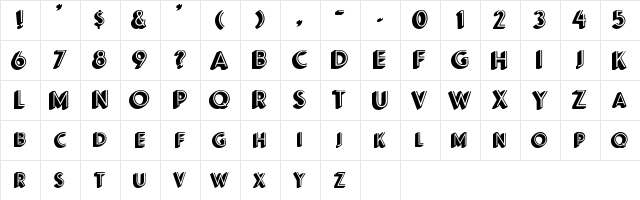
ApexShadowSCapsSSK Bold
Design Context for ApexShadowSCapsSSK Typeface
ApexShadowSCapsSSK is built around its visual character rather than neutral utility — its distinctive forms are designed to make an impression at display sizes. Its bold stroke weight gives it real presence on the page.
Font Pairing: Pair with a clean neutral sans-serif for body copy to let ApexShadowSCapsSSK's character lead without overwhelming the composition.
Pro Tip: Use ApexShadowSCapsSSK exclusively at display sizes — it was designed to be seen, not read at length. Let a neutral companion handle body copy.